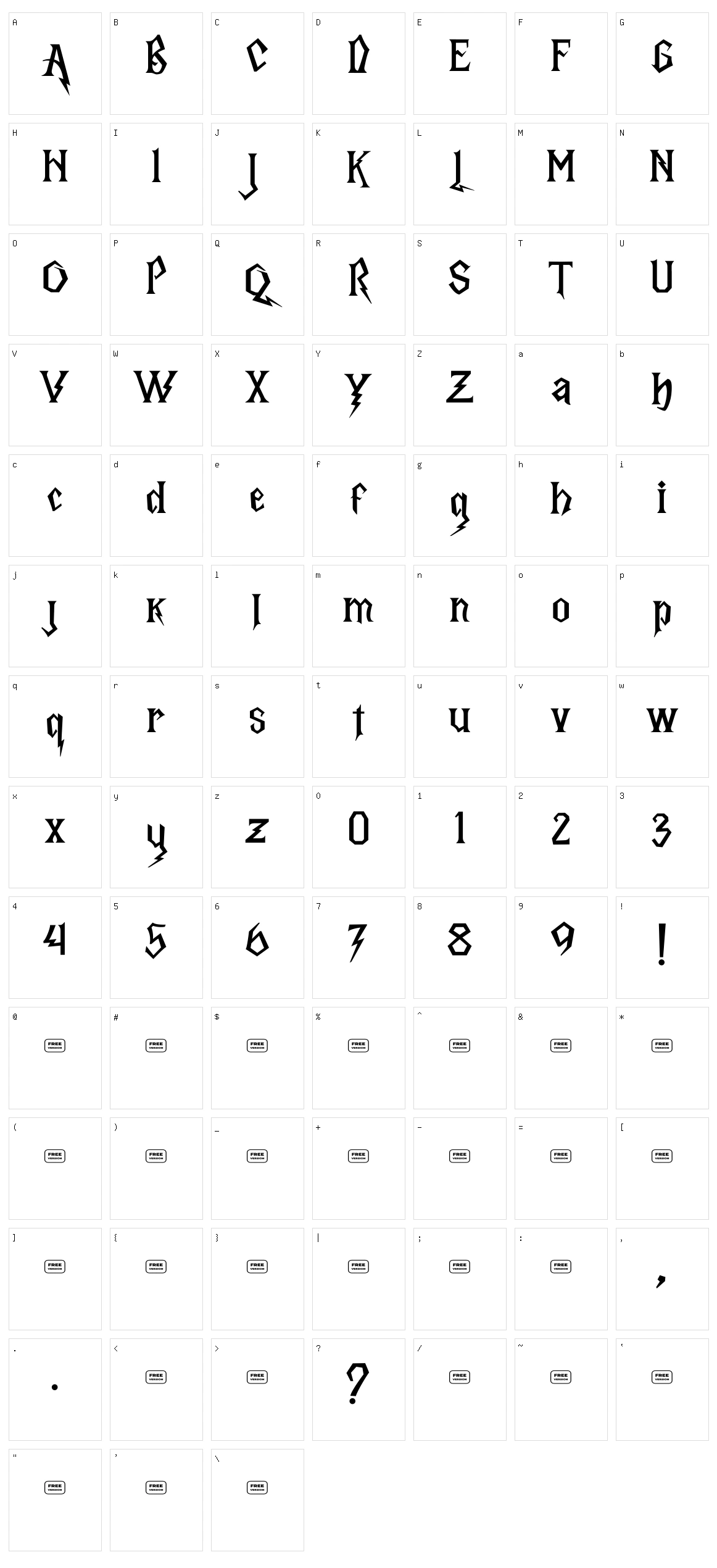
The free font Legendary Runes is carefully designed by Typefactoryco, showcasing a thoughtful balance of creativity and usability and belongs to the Gothic font family. When you download the ZIP file, it contains only 88.43 KB of font files, making it lightweight and quick to download. Please review the license details below to understand permitted usage and distribution rights. If license information is not available, we recommend using this font for personal projects only or contacting the author directly for commercial usage permissions.